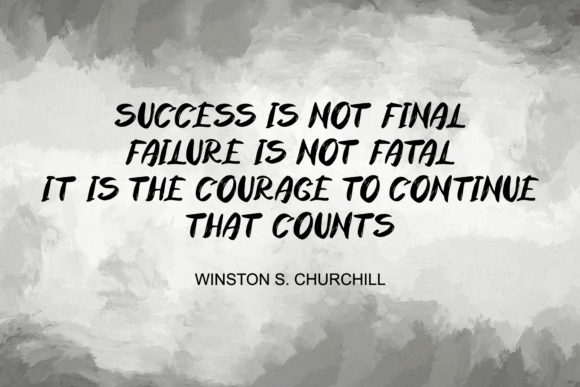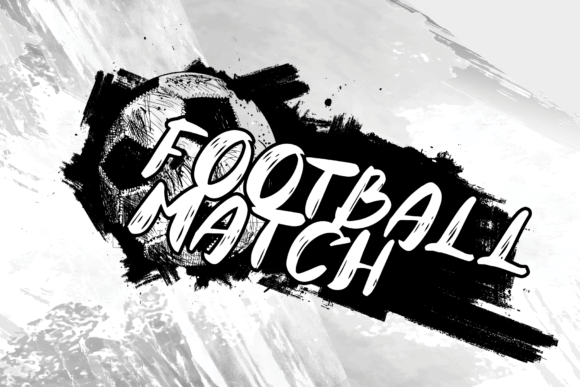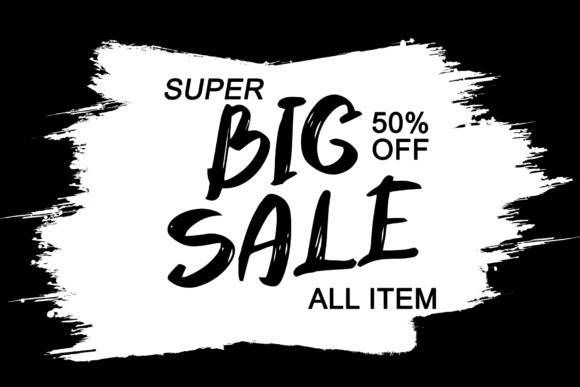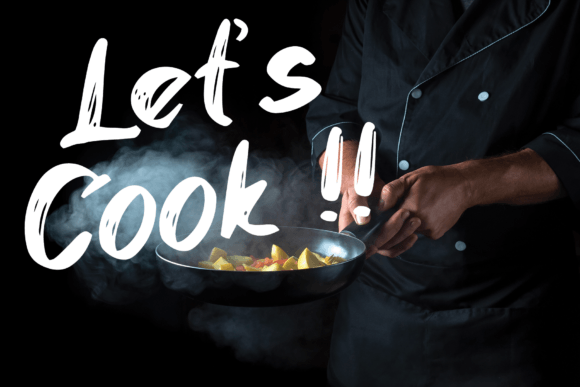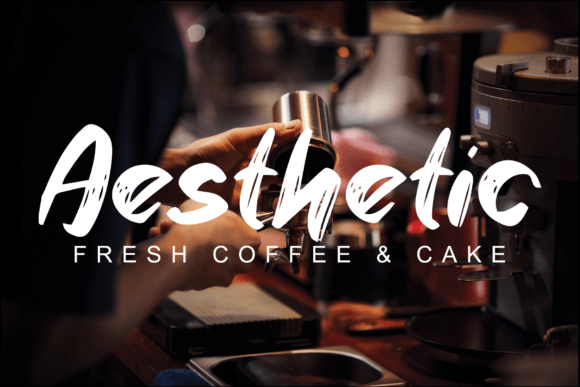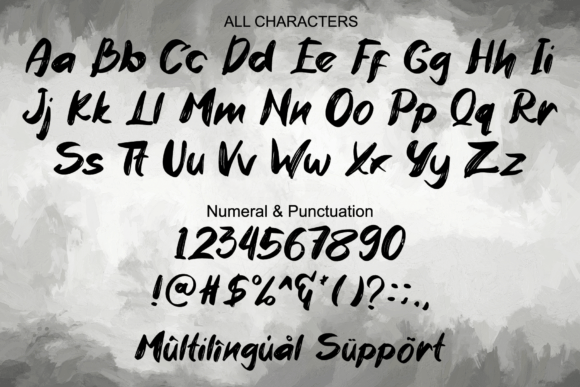
Introduction to Lezlie Font
Lezlie is a brush font that comes with standard uppercase and lowercase characters, numbers, punctuation, ligature and multilingual support.
This typeface captures the essence of masculinity with its strong lines and bold strokes Its versatility and flexibility make it suitable for various design styles, and its textured feel adds depth and character to any project.